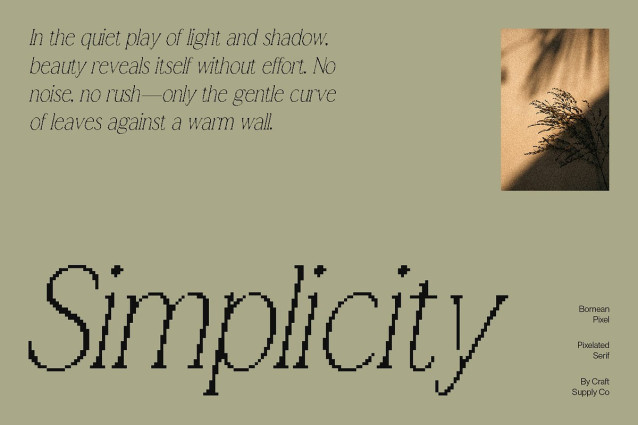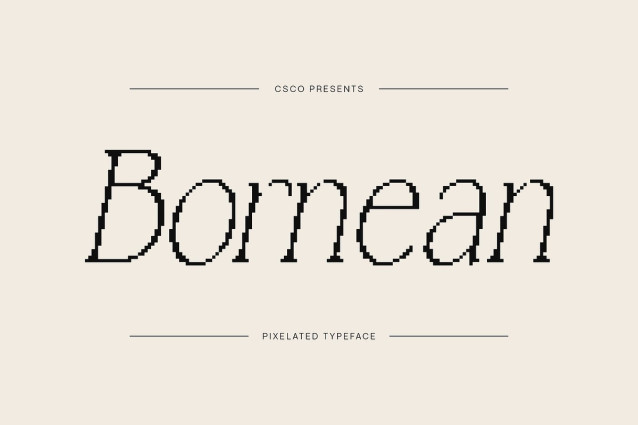
Bornean Pixel Font: combines the retro charm of pixel design with the elegance of serif fonts. Its simple yet refined structure gives it a clean and minimalist impression, while still retaining the signature pixel texture.
Elegance and Personality With subtle serif details, this font has a unique personality that is both digital and sophisticated. The elegant pixel style makes it stand out as not only a retro-inspired font but also a statement of modern minimalism.
Perfect for Branding and Fashion, Bornean Pixel is ideal for branding projects, from fashion labels and logos to modern product designs. Its clean and stylish look blends perfectly with a soft or neutral color palette, adding a touch of sophistication.
Pixel Display Font Versatile In addition to branding, this font is also suitable for posters, packaging, creative editorials, and digital design projects. This is a pixel serif font that combines elegance with modern usability, creating a unique and timeless look.